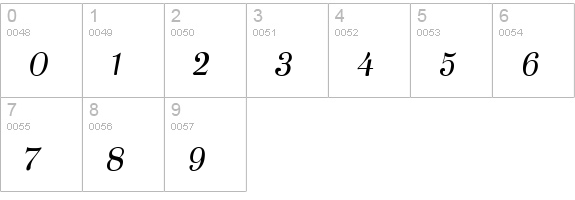
BeLucianBookItalic Font Details
BeLucianBookItalic font is a stunning typeface that exudes elegance and sophistication. Its slanted italic design adds a touch of flair to any project, making it perfect for use in branding, editorial design, and more. The delicate curves and graceful letterforms of BeLucianBookItalic font make it a versatile choice for both digital and print applications. The best part? BeLucianBookItalic font is completely free to download at FontsMarket.com. This means you can easily add this beautiful typeface to your font collection without any cost. Don't miss out on the opportunity to enhance your designs with the timeless charm of BeLucianBookItalic font - download it today and elevate your projects to the next level!